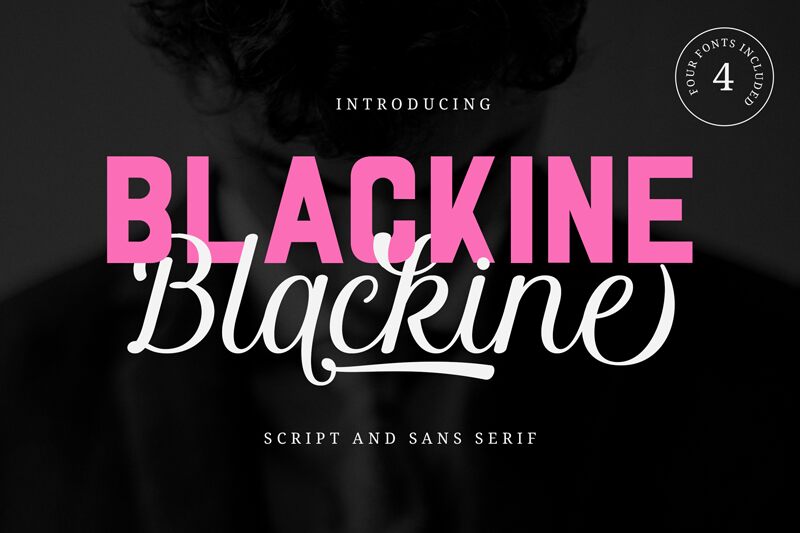
Blackine, the stunning calligraphic font designed by Ahwe Project, is perfect for adding a touch of elegance and sophistication to any project. With its semi-light weight and graceful curves, Blackine exudes a refined charm that is bound to captivate your audience. Whether you're designing wedding invitations, creating branding materials for high-end businesses or crafting greeting cards, Blackine will add a touch of class to your work. Its flowing lines are ideal for creating logos or headlines that demand attention without being overly aggressive. Beautifully crafted and versatile, Blackine is the perfect choice for designers looking for an exquisite calligraphy font that packs a punch.
Blackine